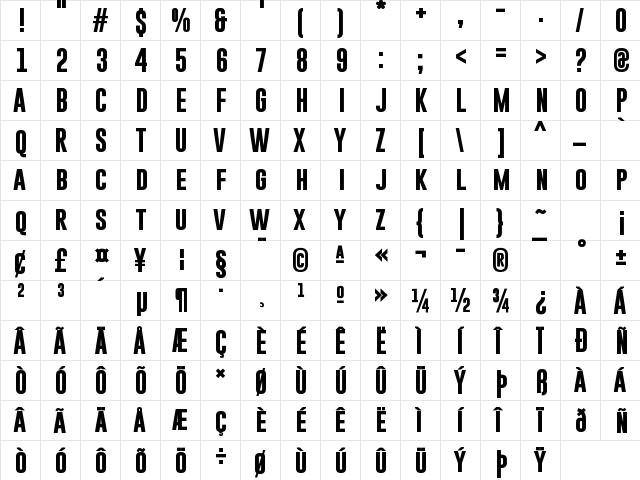
Gobold Bold Regular
Design Context for Gobold Bold Typeface
Gobold Bold is a composed and adaptable typeface that performs quietly and consistently across a wide range of design contexts. The heavy weight commands attention and anchors typographic hierarchies.
Pro Tip: Pair Gobold Bold with a font of contrasting weight or personality to build a more expressive typographic hierarchy.